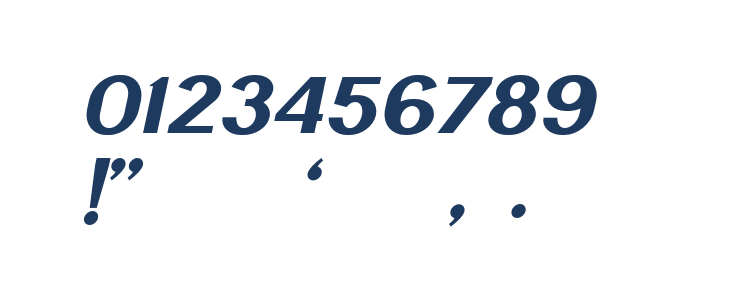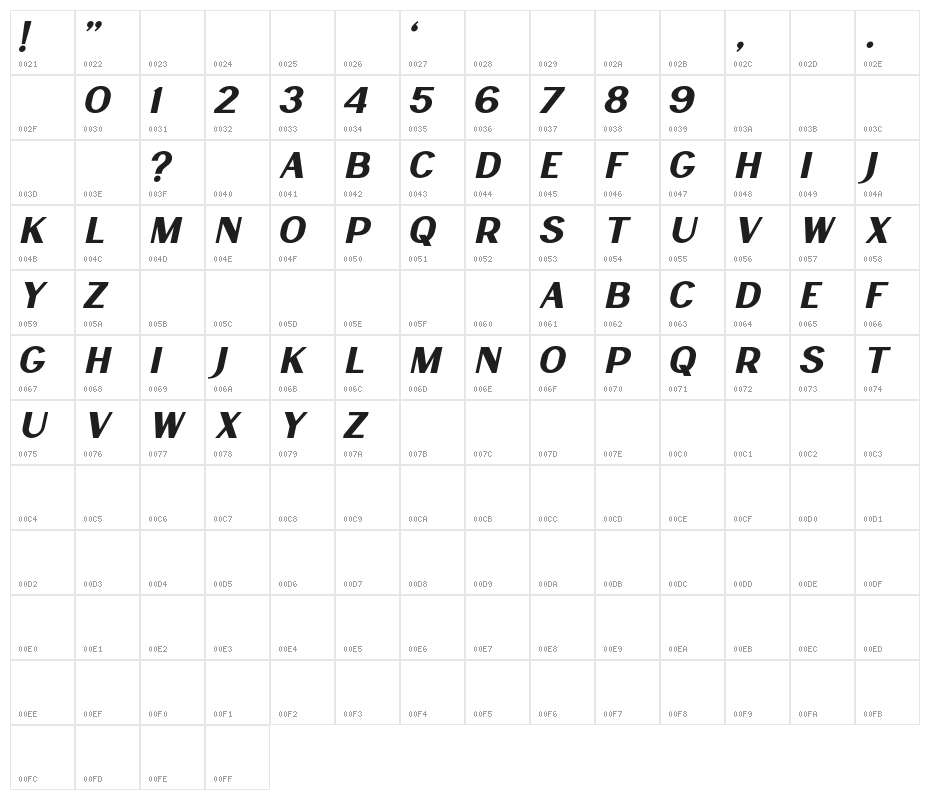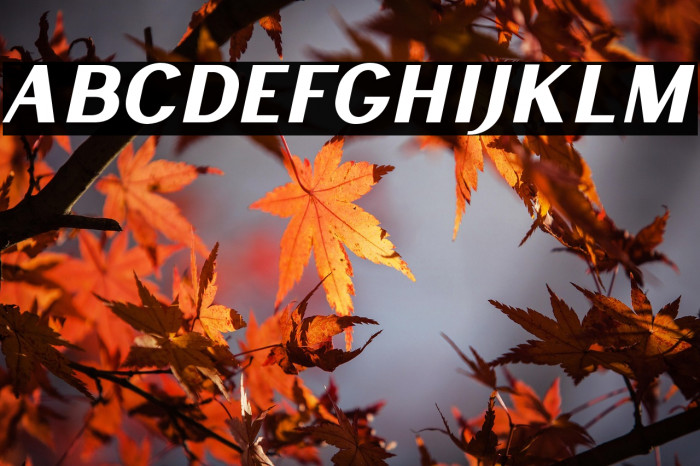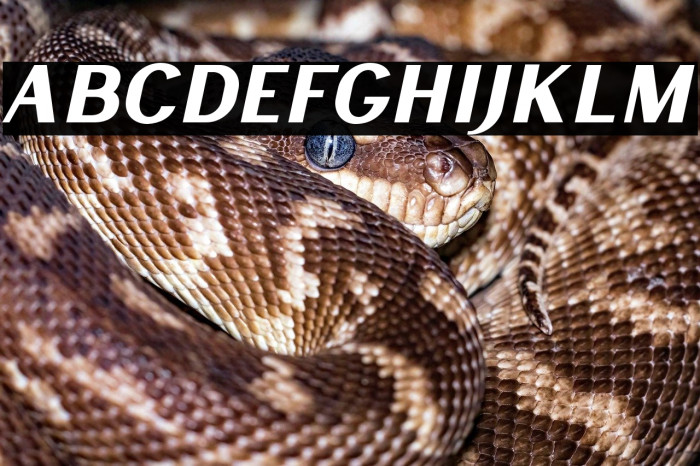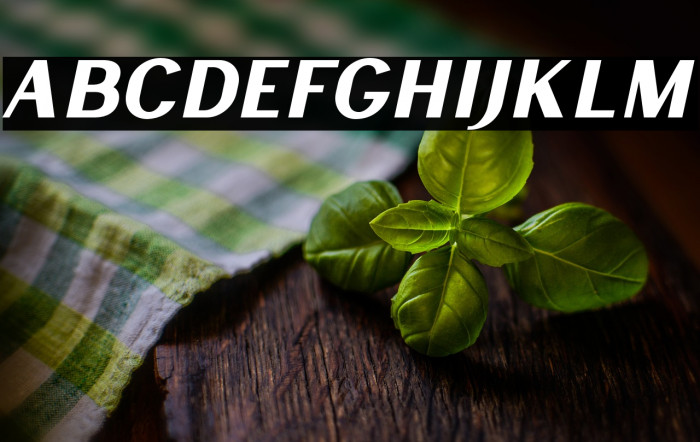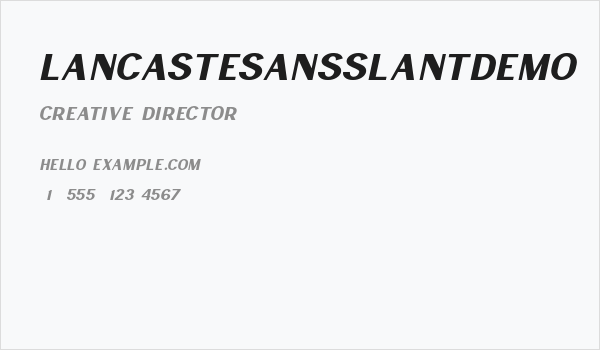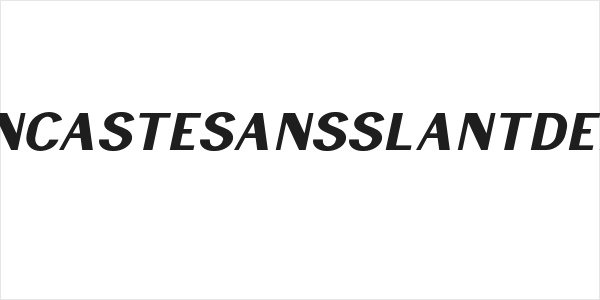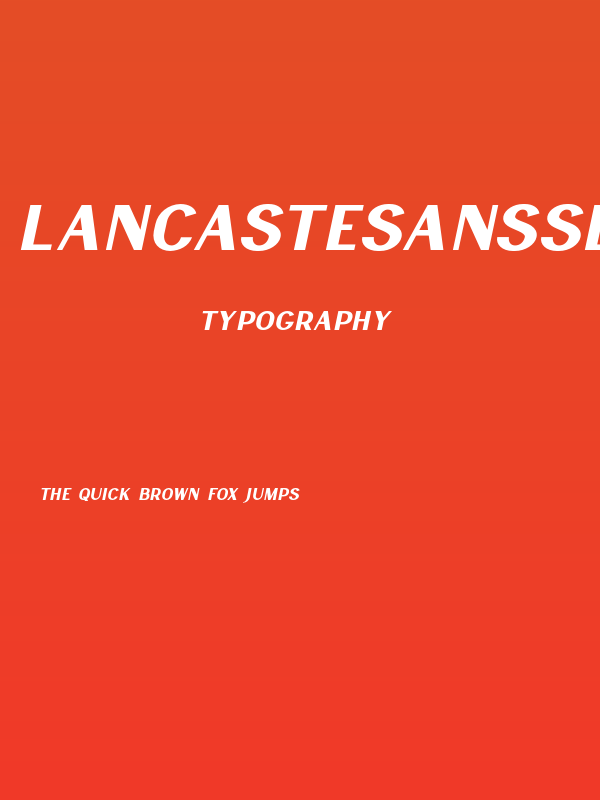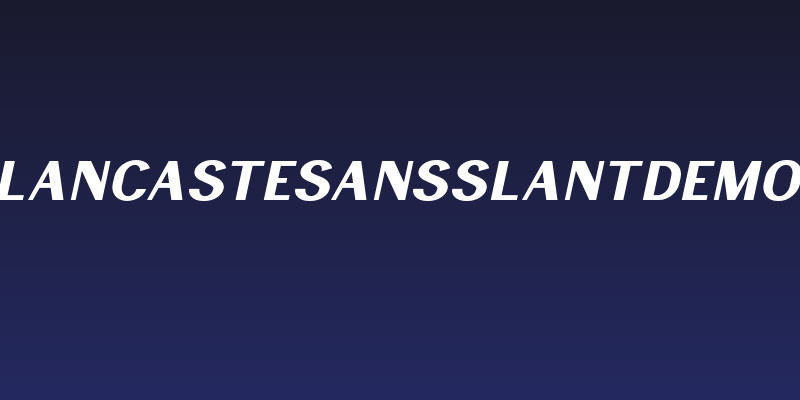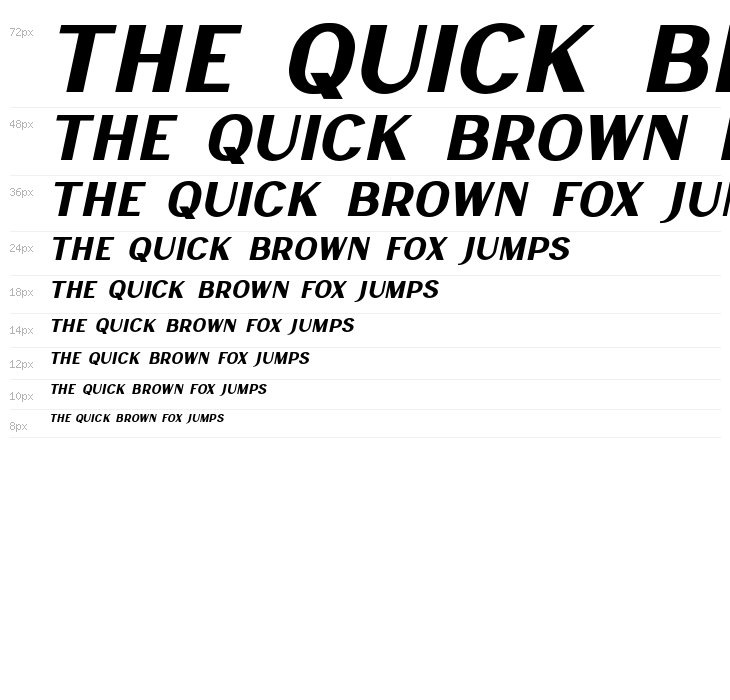
LancasteSansSlantDemo Font
LancasteSansSlantDemo Description
This font exhibits a sleek and modern sans-serif style with a noticeable slant, giving it a dynamic and forward-moving appearance. The characters are bold and well-defined, with consistent stroke thickness that maintains readability across various sizes. The uppercase and lowercase letters are proportionally balanced, and the numerals are clear and distinct. Special characters are included, providing versatility for different design needs. The overall design is clean and professional, making it suitable for contemporary projects.
| Proposed Projects | Ideal for branding, advertising, headlines, and digital media projects that require a modern and dynamic look. |